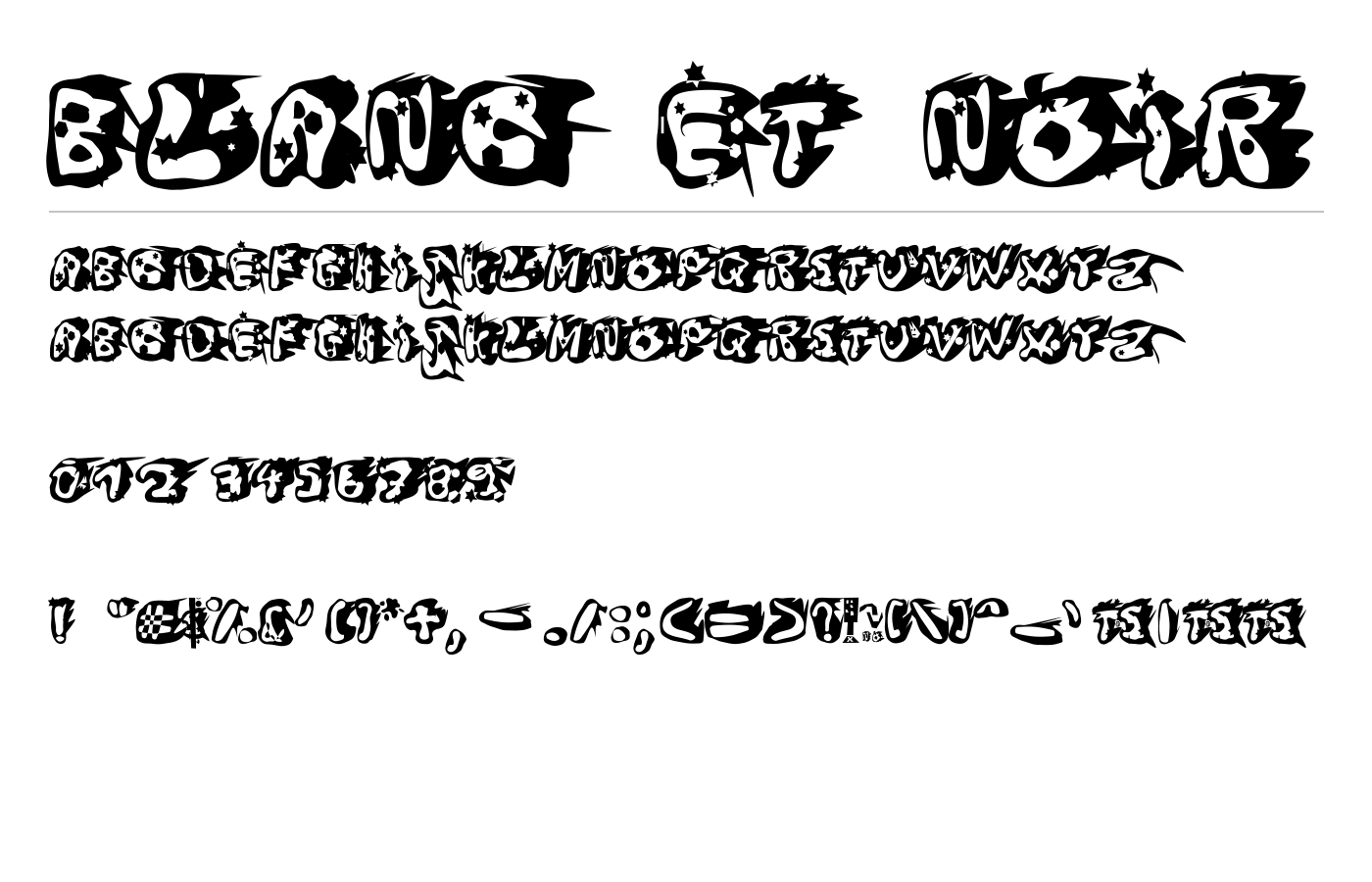
Blanc et Noir is a bold, decorative display font featuring heavily stylized, irregular letterforms filled with star-shaped cutouts, giving it a playful and chaotic feel. Its thick, black shapes and rough edges create a strong visual impact, best suited for eye-catching headlines, posters, and creative branding where a sense of fun and uniqueness is desired. This font works well in designs that want to stand out with an unconventional and lively personality.
| Designer | Tristan Savoie |